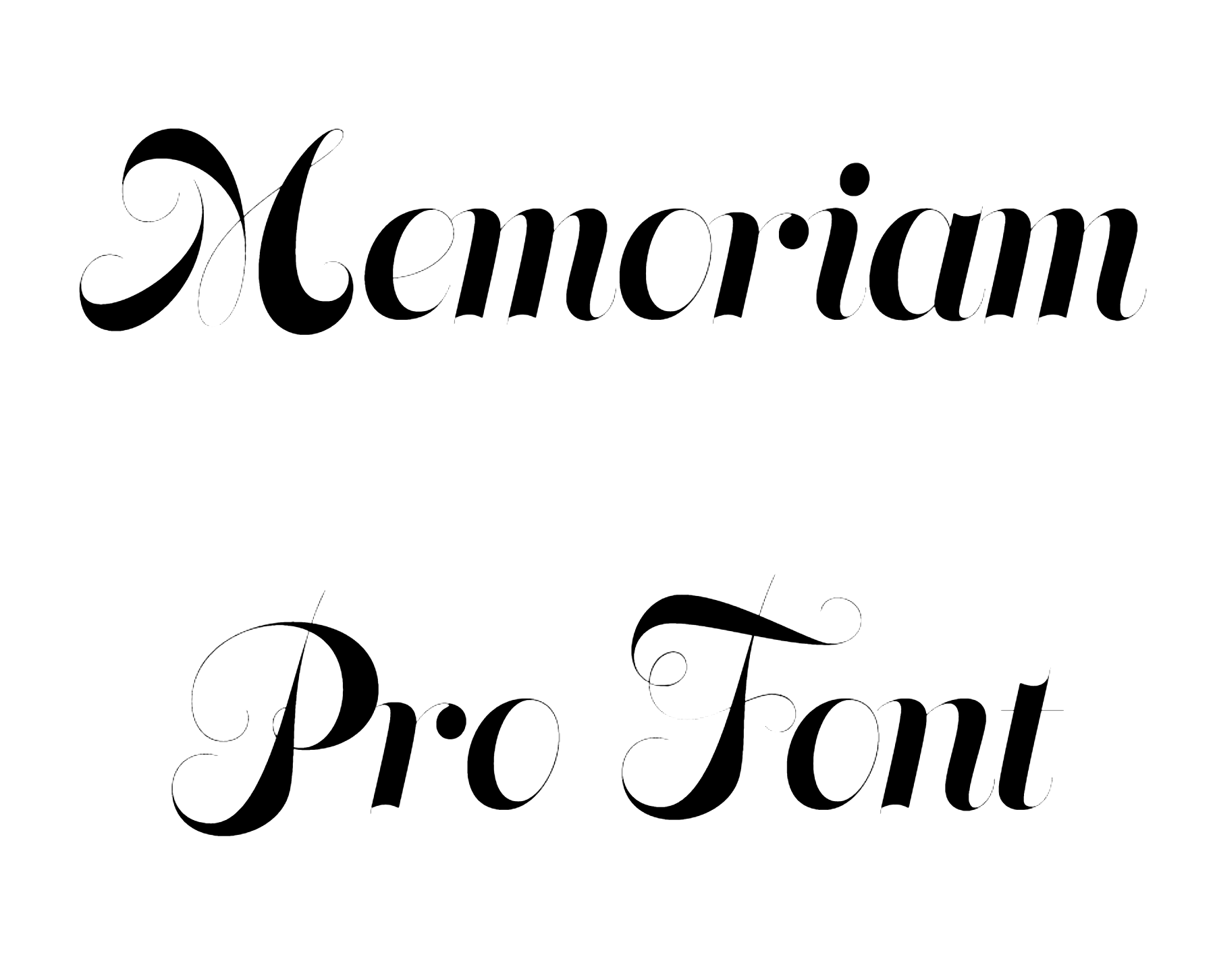
Memoriam Pro
Memoriam Pro is a fancy font created by Patrick Griffin (2009). It's a decorative display font with plenty of personality, made to grab attention. It's a free download, and you can try it with your own text in the preview above first.
- Designer: Patrick Griffin
- Year: 2009 (from the copyright line in the font)
What You Can Type With Memoriam Pro
With complete upper and lowercase letters and all ten digits, Memoriam Pro is ready for real wording, not just a single headline. Common punctuation such as &, !, ? and @ is included as well. It doesn't include accented letters such as é or ñ, which makes it an English-only font.
Where Memoriam Pro Works Best
Memoriam Pro is a natural fit for posters, logos and eye-catching headlines. Its lowercase letters are small compared to the capitals, so set it a size or two bigger than usual. The file has no kerning data, so in logos and big titles check pairs like AV, To and Wa and tighten the spacing by hand. Use it for one standout word or headline and let simpler fonts handle the rest.
Does Memoriam Pro support accented letters?
No. Memoriam Pro has no accented letters such as é, ñ or ü, so it's best for English text.